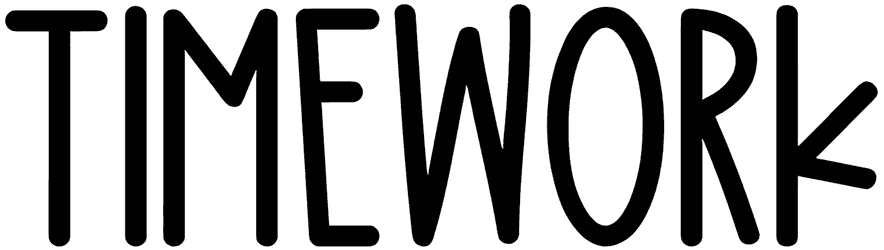
Timework Font
It sounds so sophisticated to call a font “Timework,” but only at first, because once you realize what we’re talking about, you’ll know that using Timework for your projects won’t feel like working at all; having fun is more like it.
So if your coloring pencils or crayons need a logo, go ahead. This tall handwritten font and its childish attitude are your best chance for branding your stationery items, as well as designing anything that can capture kids’ interest.